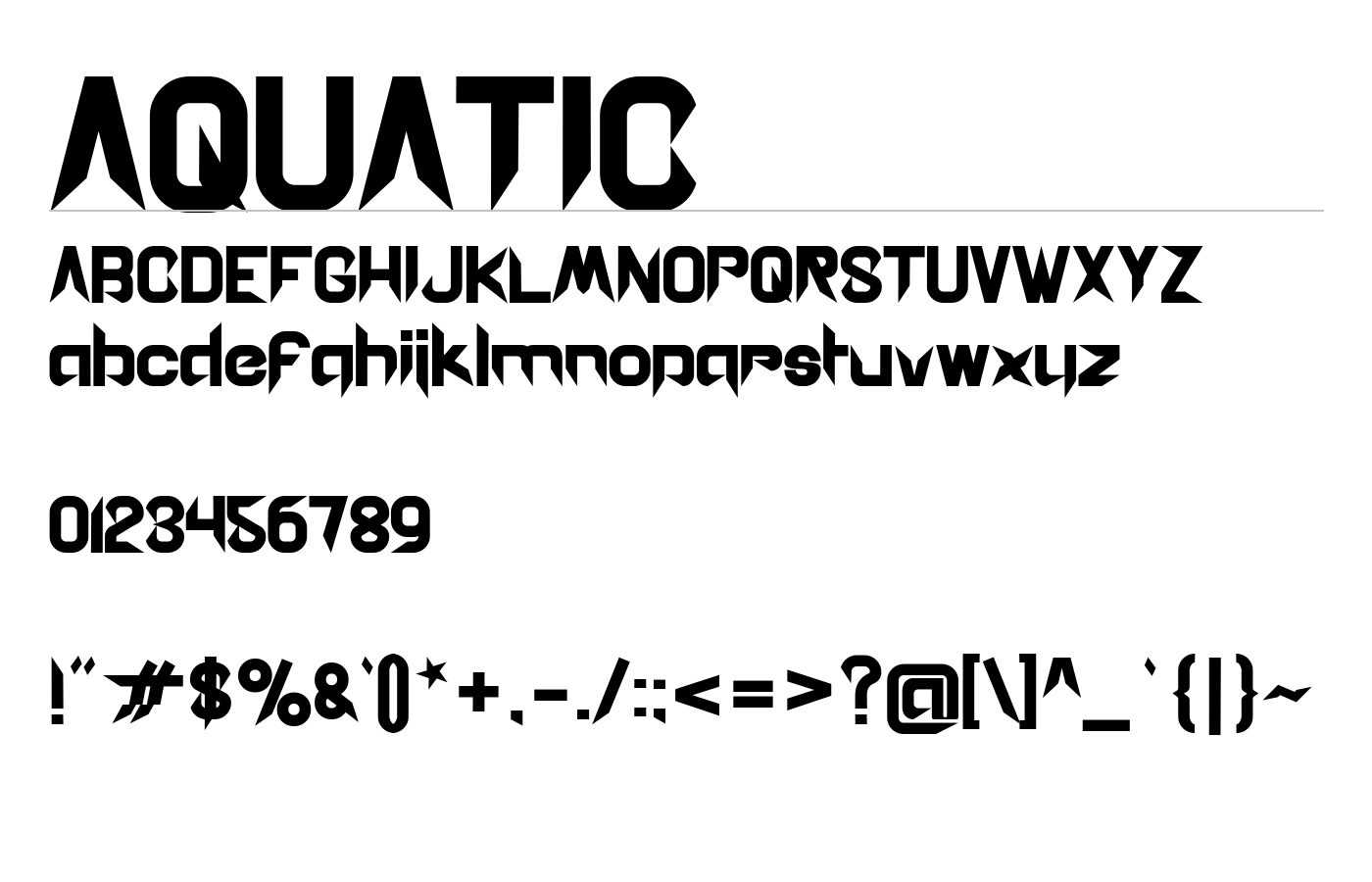
AQUATIC is a bold, geometric sans serif font featuring sharp, angular cuts that create a futuristic and edgy vibe. Its high contrast and distinctive letter shapes make it ideal for striking headlines, logos, and branding that aim to convey innovation and modernity. This font works best in creative and tech-related designs where a strong, contemporary personality is desired.
AQUATIC Font
About AQUATIC Font